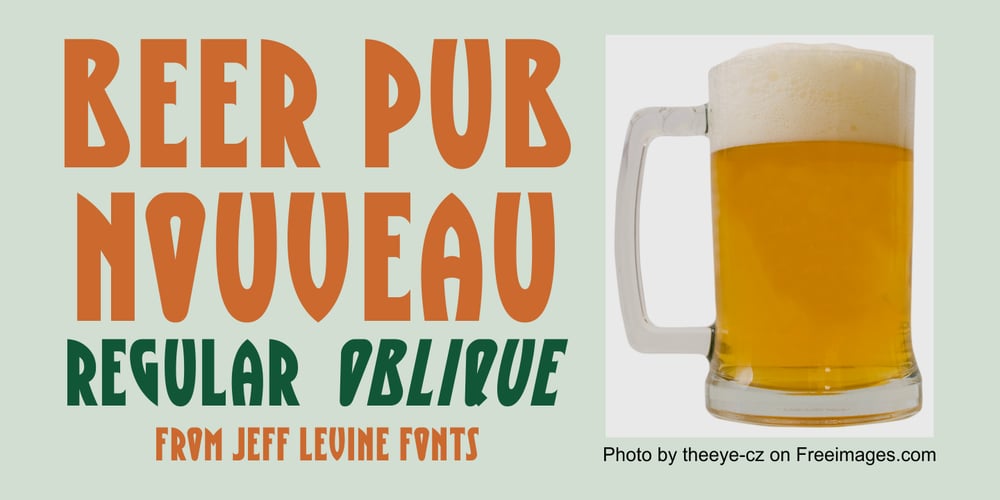
Beer Pub Nouveau JNL Font Family was designed by Jeff Levine and published by Jeff Levine. Beer Pub Nouveau JNL contains 2 styles and family package options. A 1911 beer poster for the Italian brew Birra di Borgofranco featured some beautiful Art Nouveau hand lettering in a condensed sans serif style. This inspired the typeface Beer Pub Nouveau JNL, which is available in both regular and oblique versions.